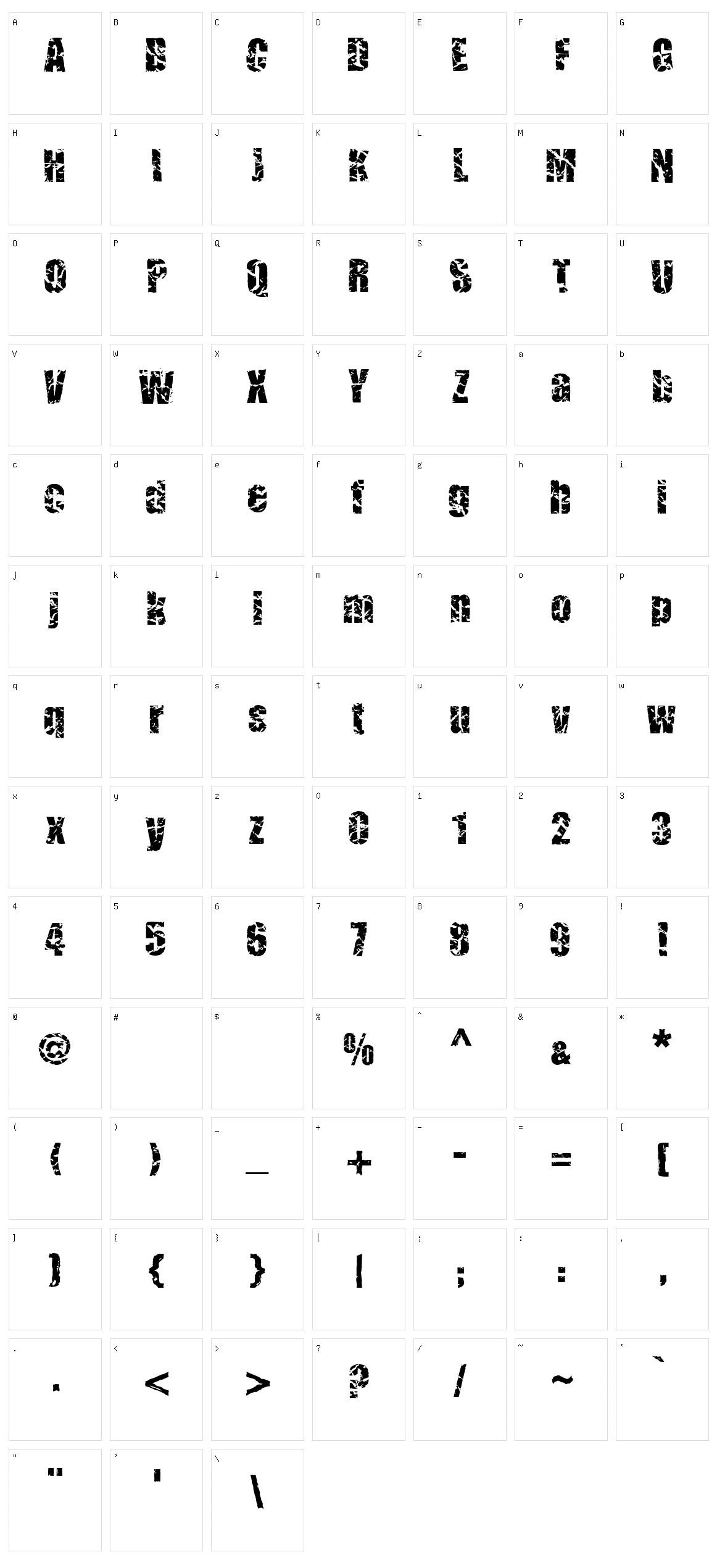
The free font CM Corruged is carefully designed by Charly Masci, showcasing a thoughtful balance of creativity and usability and falls under the Destroy font style. When you download the ZIP file, it contains only 111.51 KB of font files, making it lightweight and quick to download. Please review the license details below to understand permitted usage and distribution rights. If license information is not available, we recommend using this font for personal projects only or contacting the author directly for commercial usage permissions.